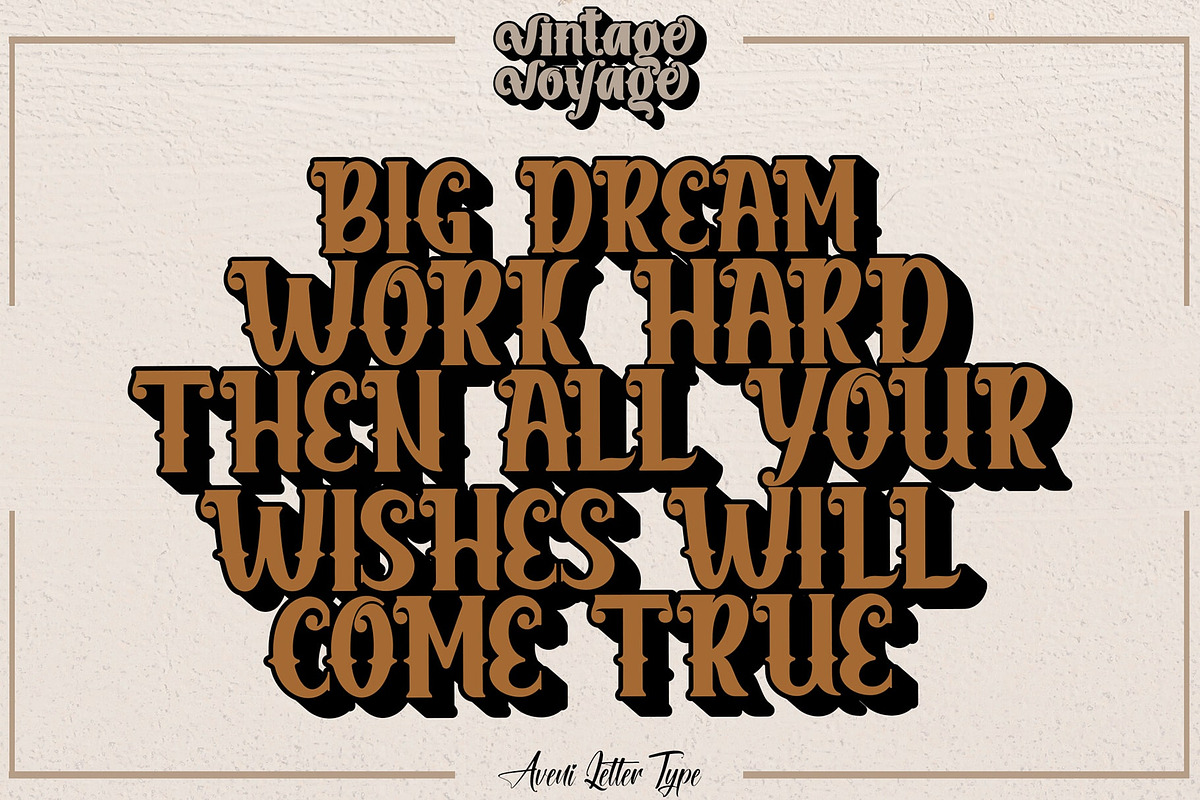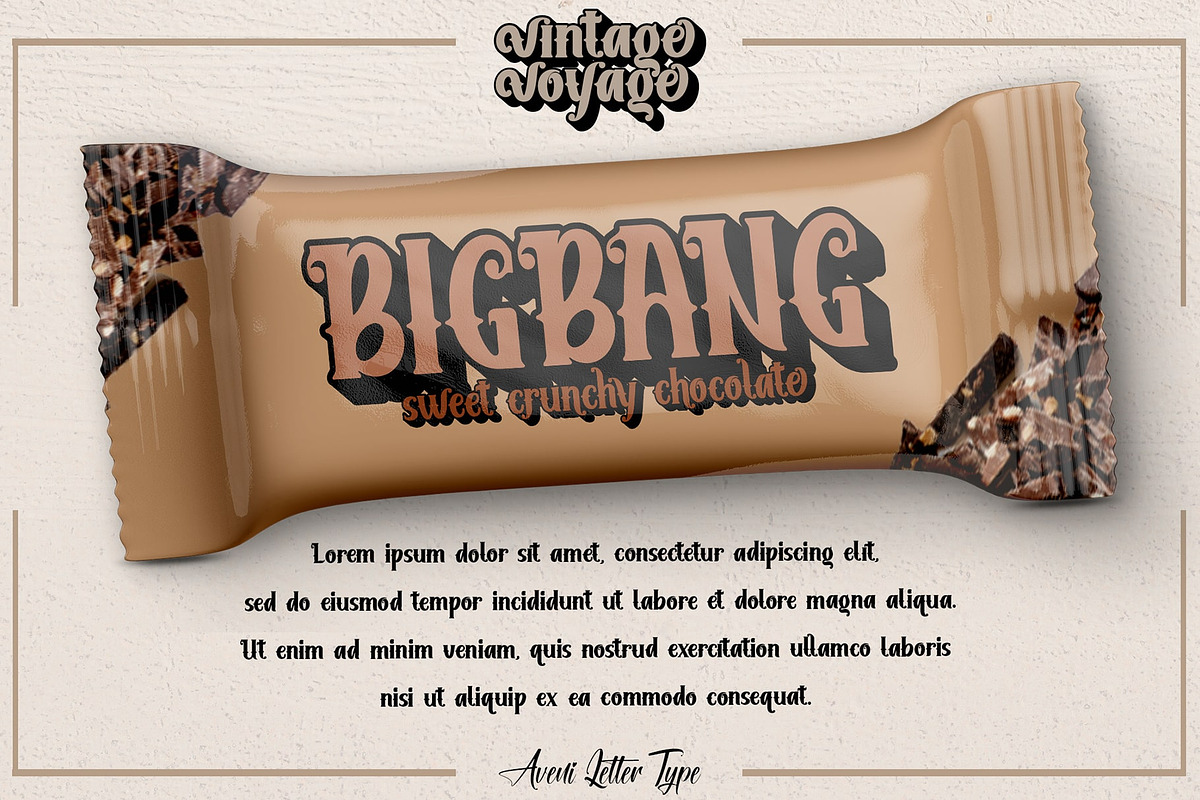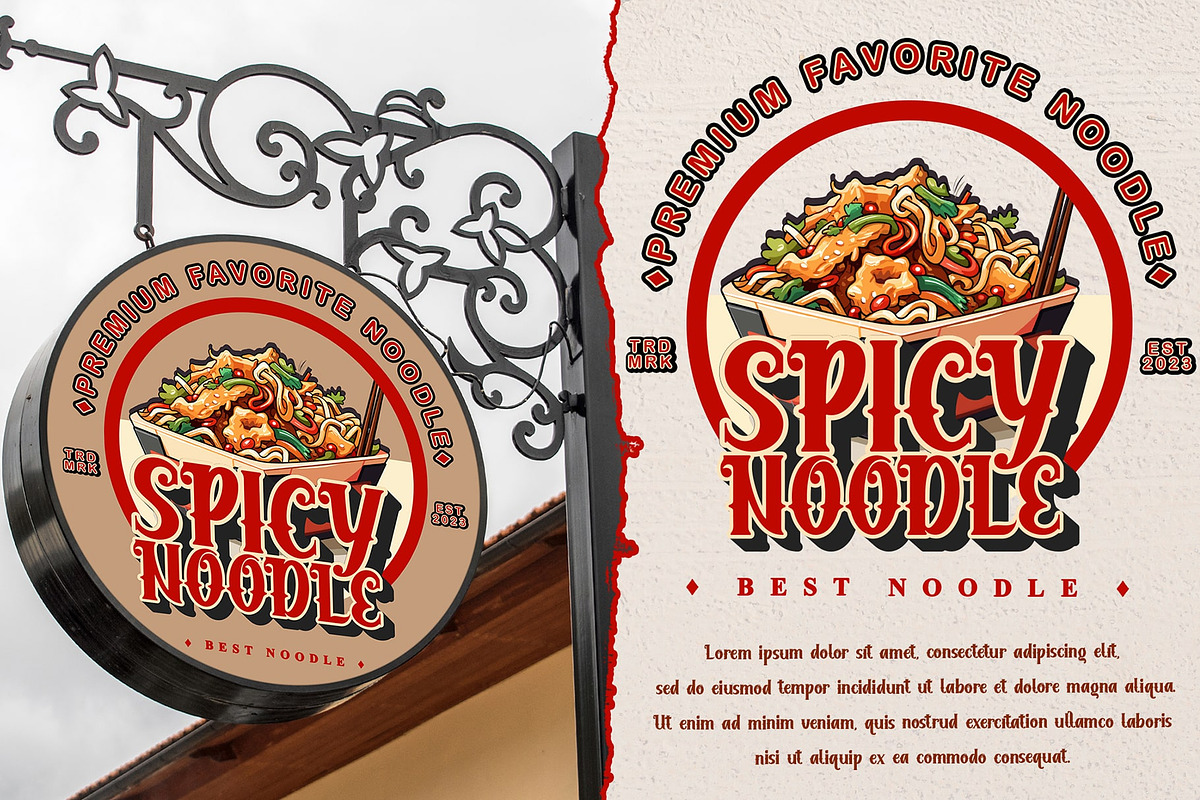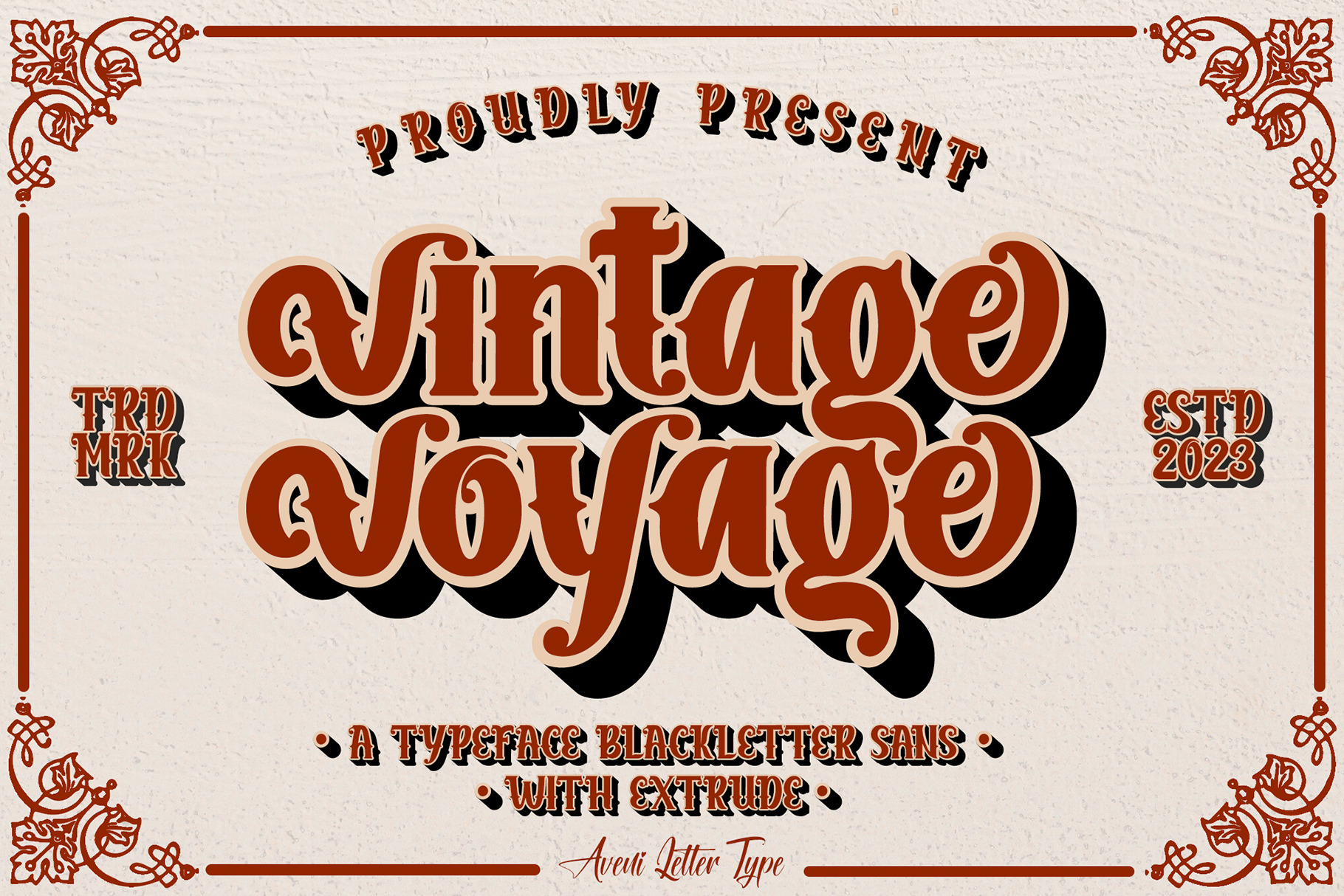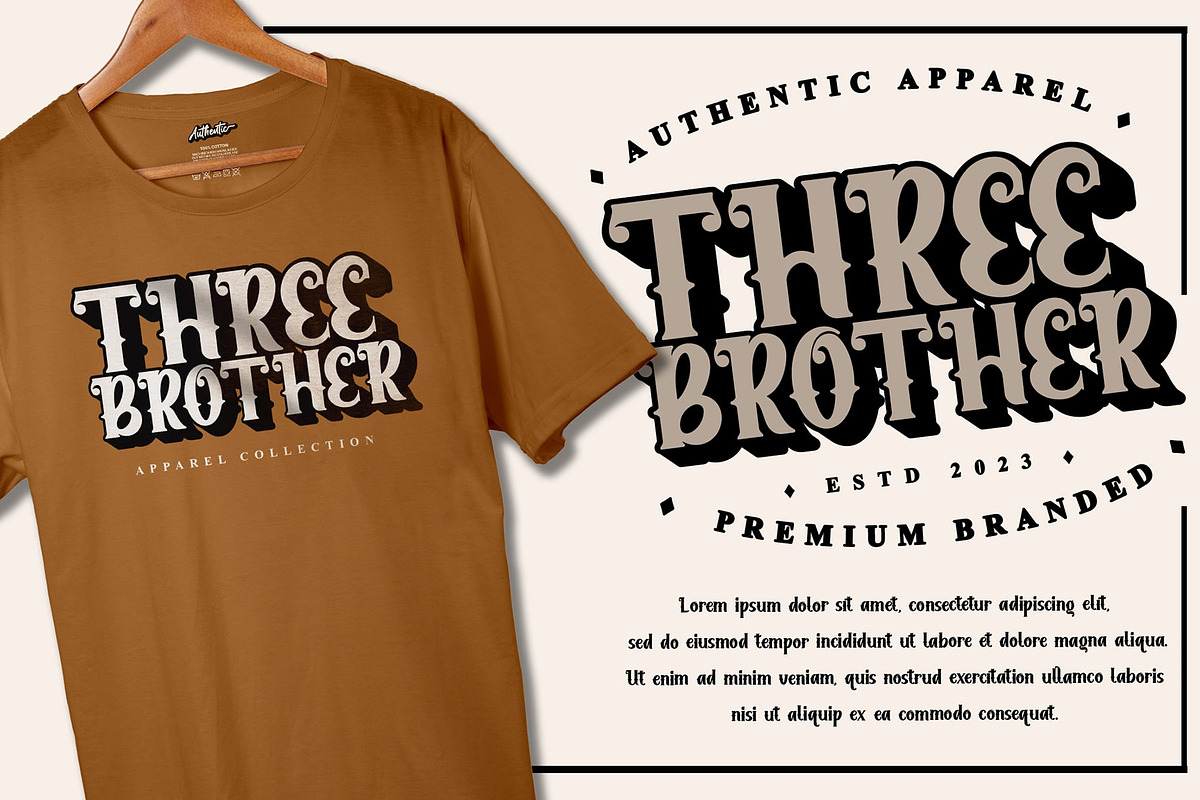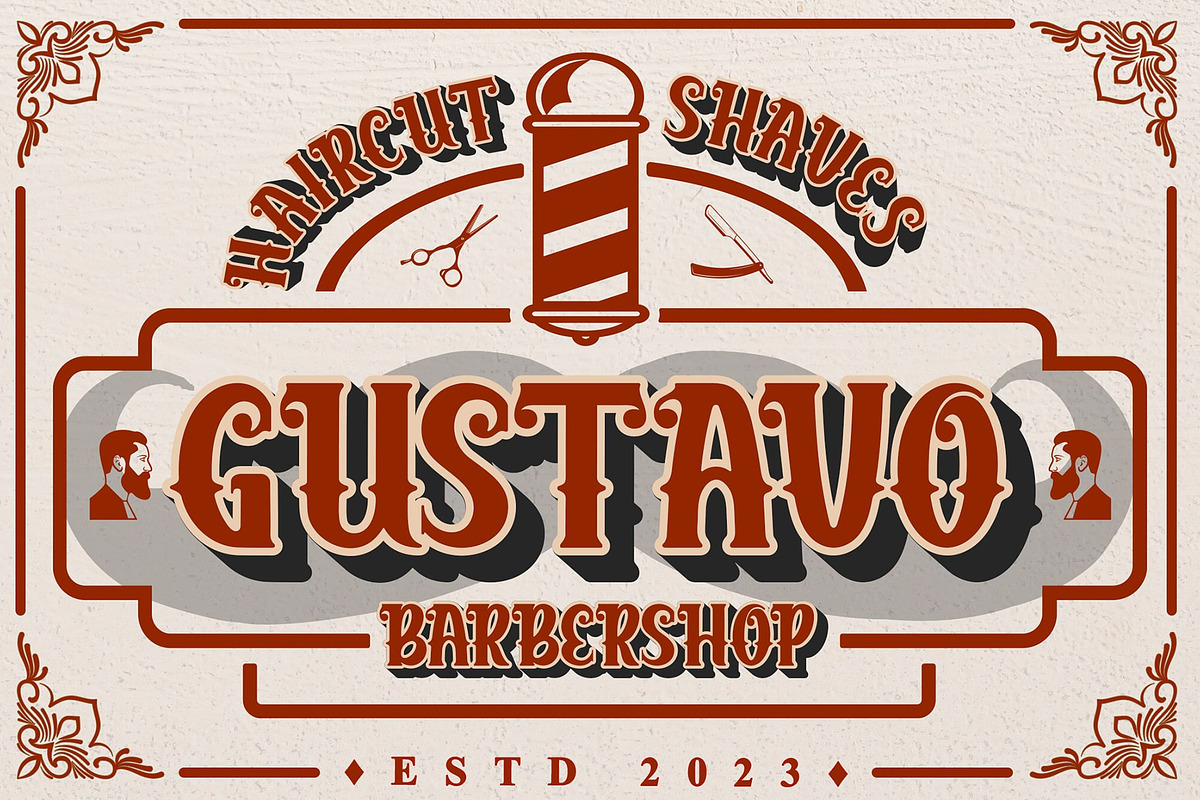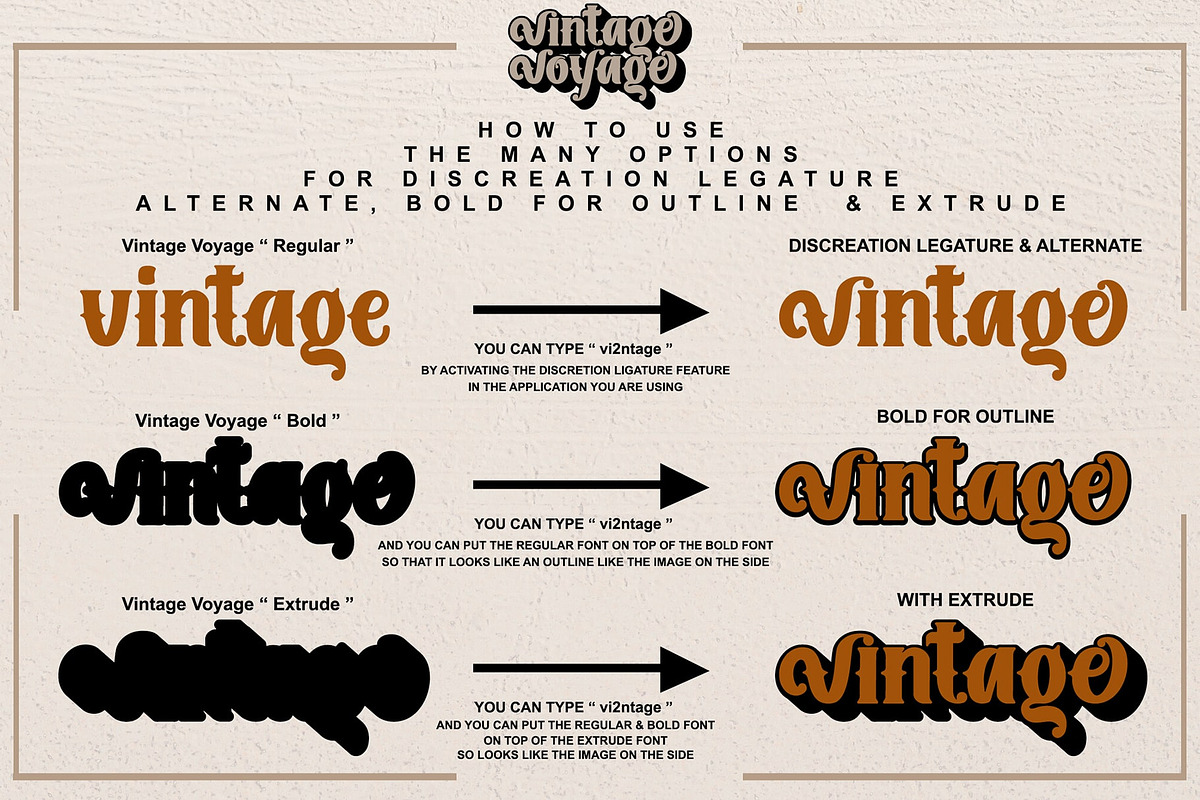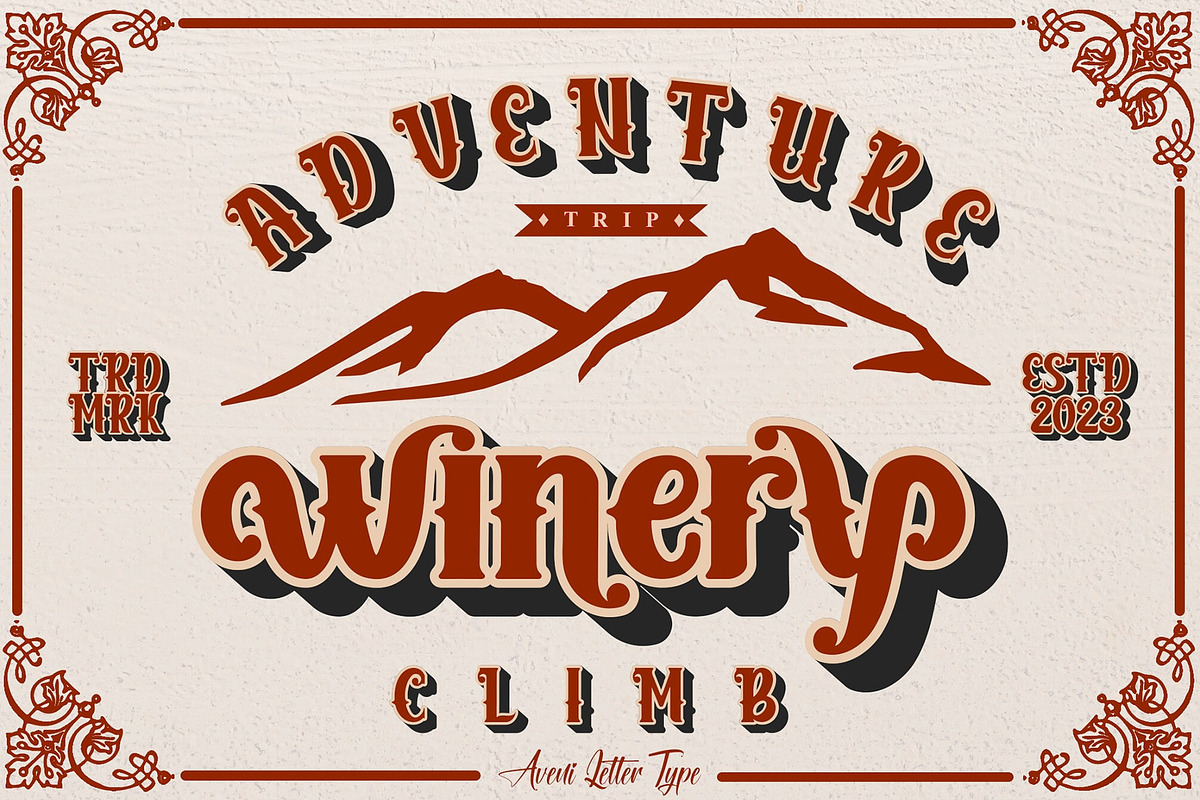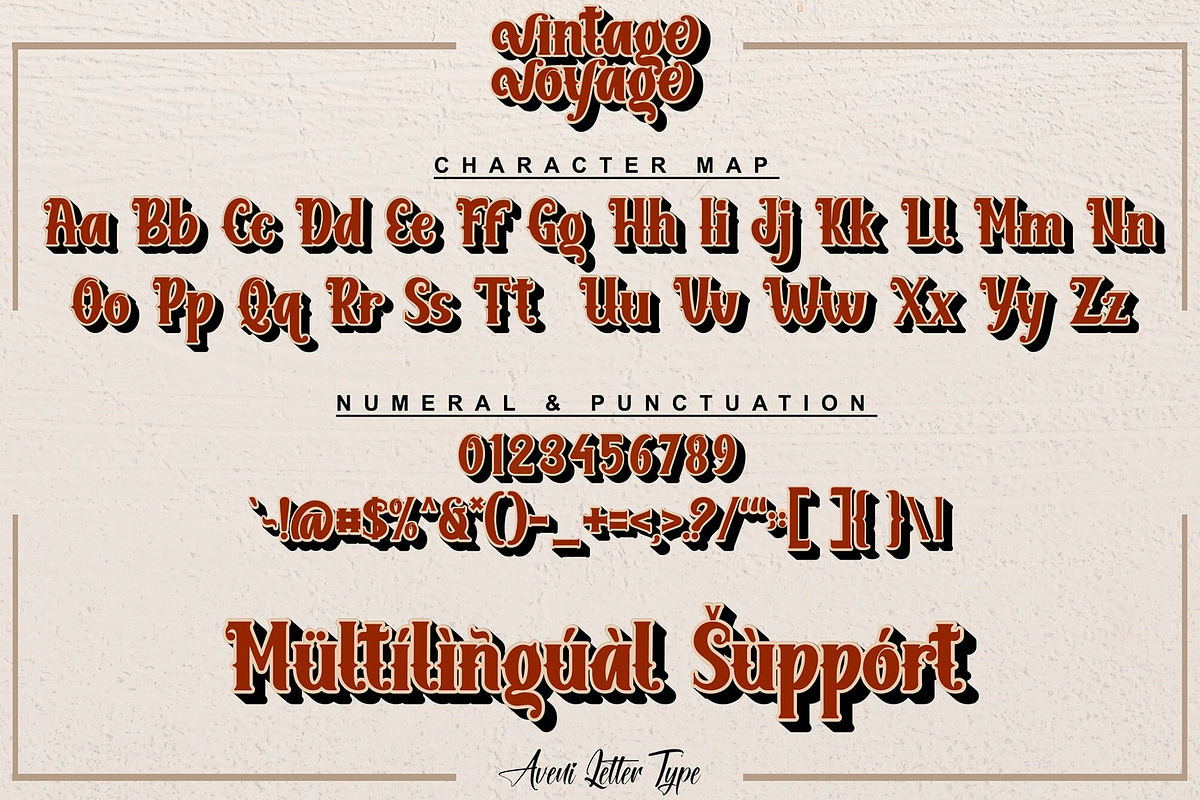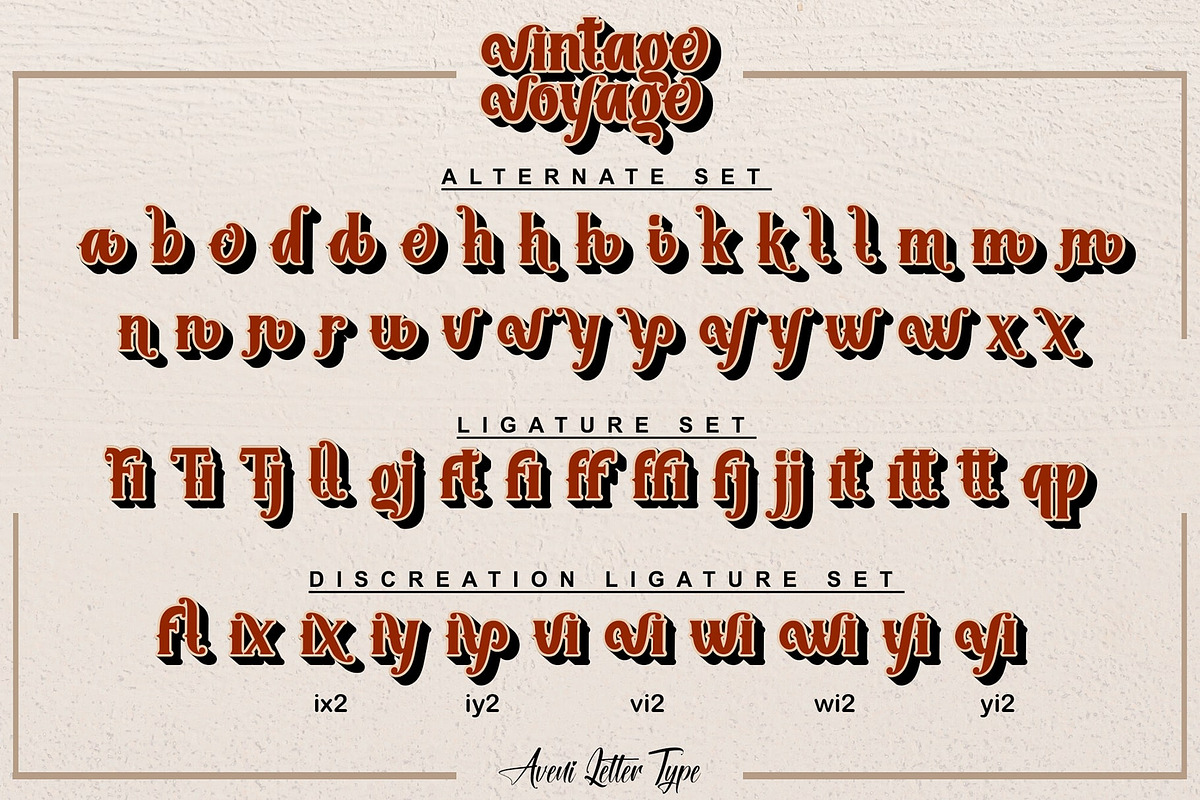
Vintage Voyage | Display Serif Font
Hi Guys, my name is Vintage Voyage, I was born with a display font but still have a serif style and very neat kerning. Vintage Voyage font has a font family that Bold can be used as a regular outline font and comes with Extruded. This font can be used in many projects such as product branding, apparel branding, logotypes, wedding invitations, store branding, posters, merchandise, headers, and so much more!
Font Feature :
- Ligature & Discretion Ligature
Font Family Include :
- Vintage Voyage Standard Font
- Vintage Voyage Bold Font
- Vintage Voyage Extrude Font